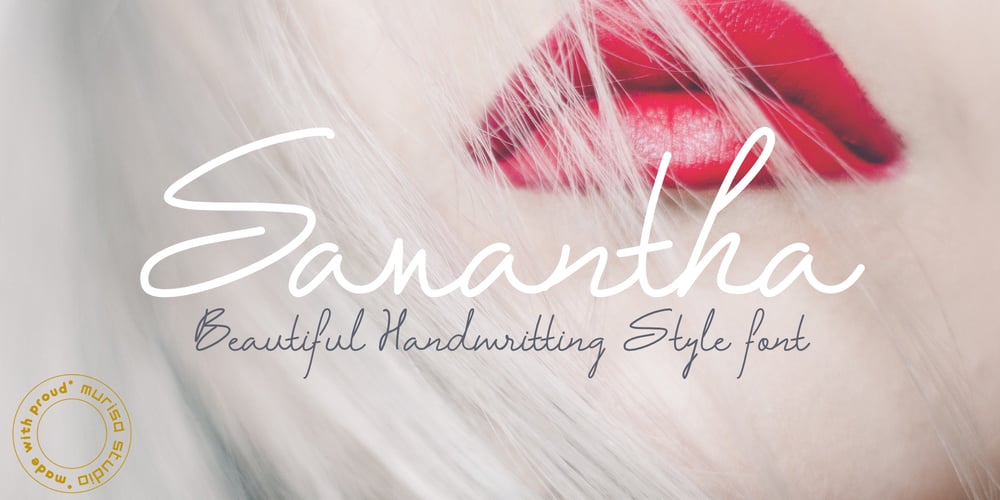
Murisa Samantha Font Family was designed by Lili and published by Murisa Studio. Murisa Samantha contains 1 styles and family package options. Samantha is our unique font product . Continuing the unique writing style, Samantha is here as an answer for those of you who crave handwritten typefaces with a unique and attractive style. Samantha is the right choice for designers in creating stunning designs. Samantha is really appropriate to use in invitation cards and other happy moments. Get Samantha now..